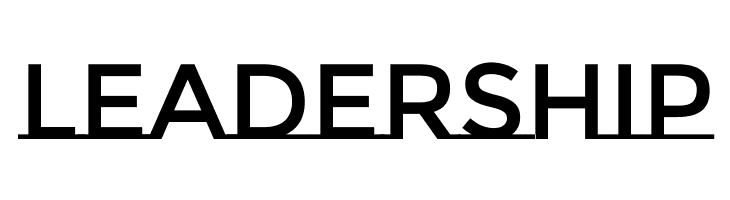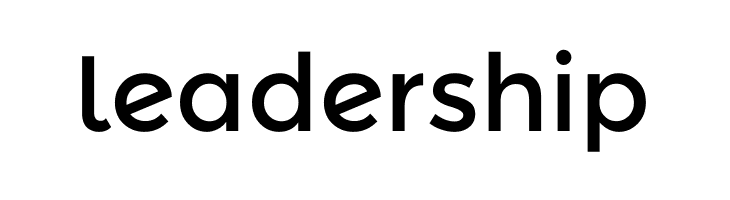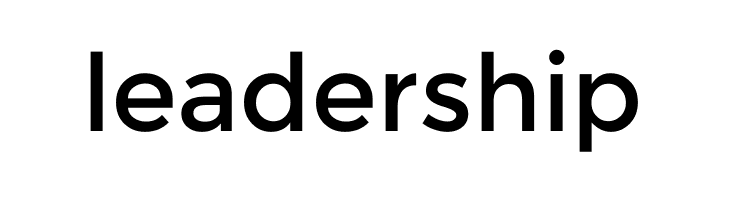
• Montserrat Alternates Thin
A thin, geometric font with a modern and minimalist design.
• Montserrat Alternates Thin
A modern, geometric font with clean lines and uniform stroke width.
• Montserrat Alternates Thin Italic
A modern, thin italic font with sleek, elegant lines.
• Montserrat Black
A bold, modern sans-serif font with strong geometric shapes and clean lines.
• Montserrat Black Italic
• Montserrat Bold
A bold, modern sans-serif font with geometric styling.
• Montserrat Bold
A bold, modern sans-serif font with clean lines and geometric shapes.
• Montserrat Bold Italic
A bold, italicized font with a modern and clean aesthetic.
• Montserrat ExtraBold
A bold, modern typeface with clean lines and geometric structure.
• Montserrat ExtraBold
A bold, modern sans-serif typeface with clean lines and geometric shapes.
• Montserrat ExtraBold Italic
A bold, italic sans-serif font with a modern and dynamic style.
• Montserrat ExtraLight
A modern, geometric sans-serif font with a clean and minimalist design.
• Montserrat ExtraLight Italic
A sleek, modern, and italicized font with thin strokes and high legibility.
• Montserrat Italic
A modern, italic sans-serif font with smooth curves and uniform stroke width.
• Montserrat Light
A modern, geometric sans-serif font with a clean and minimalistic design.
• Montserrat Light Italic
A sleek, modern, and light italic font with smooth curves and clean lines.
• Montserrat Medium
A modern, geometric sans-serif font with balanced proportions.
• Montserrat Medium